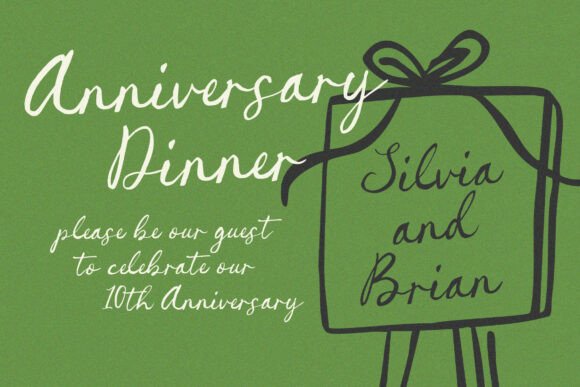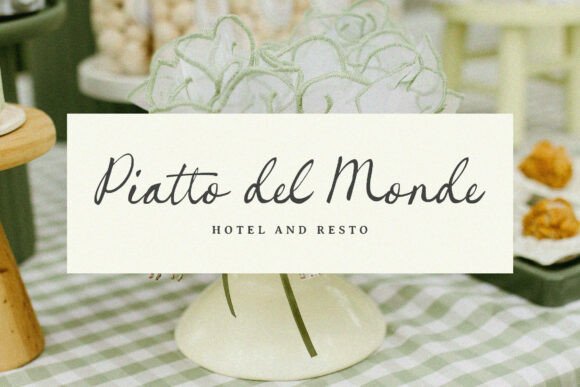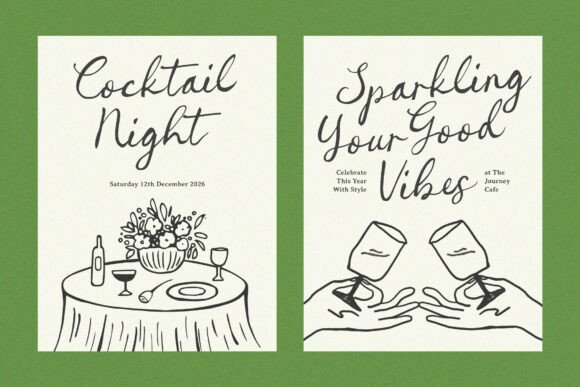
Introduction to Rilona Notes Font
Introduced by Timurtype Studio.
Rilona Notes is a Inky Handwritten Script Font Rilona Notes is a inky, handwritten script font with a natural, artistic flair Its flowing, brush-style strokes give text a personal and expressive feelβ€”perfect for creative designs, journaling, branding, and invitations that want a handcrafted touch.
Rilona Notes Font offers exceptional quality and versatility, making it a valuable addition to your design toolkit. Whether you’re creating for personal projects or commercial use, Rilona Notes Font delivers professional results.